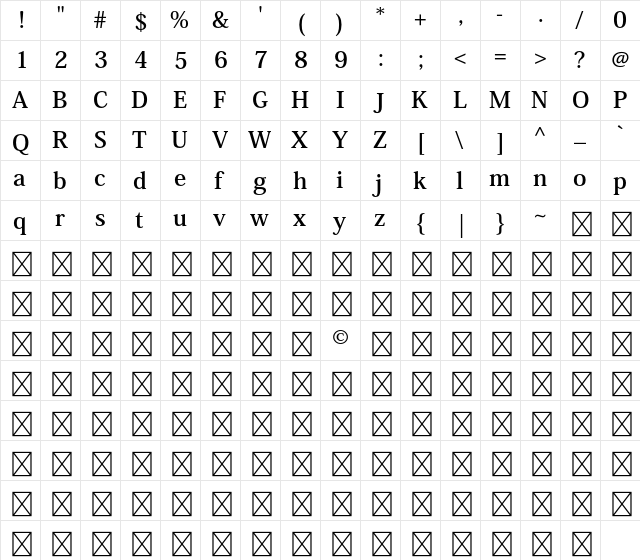
Munhwa Myungjo Std B
Design Context for Munhwa Myungjo Std Typeface
Munhwa Myungjo Std is a composed and adaptable typeface that performs quietly and consistently across a wide range of design contexts.
Pro Tip: Use Munhwa Myungjo Std in both headline and body roles to test its range before committing to a single application.